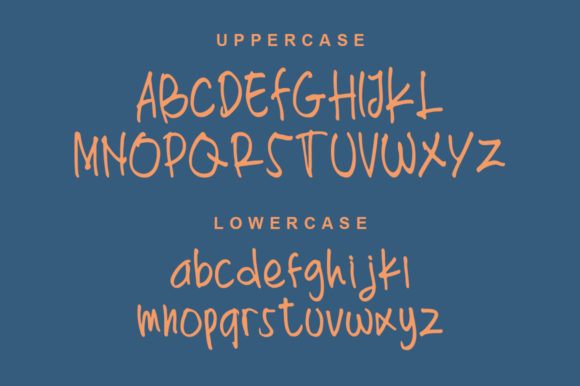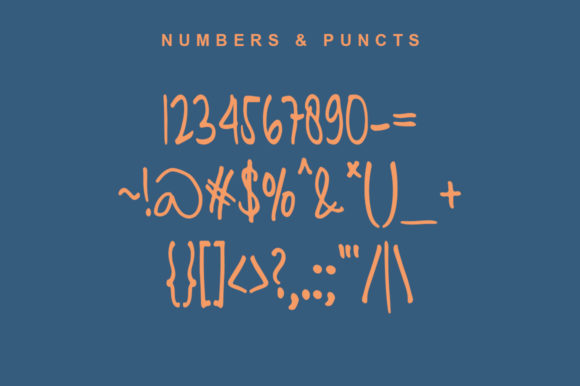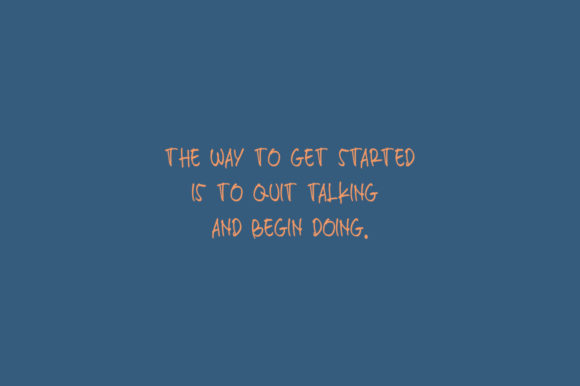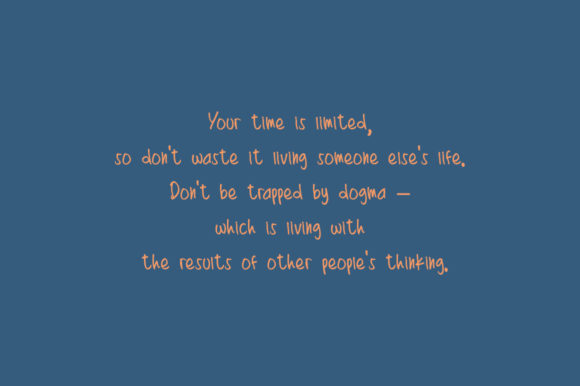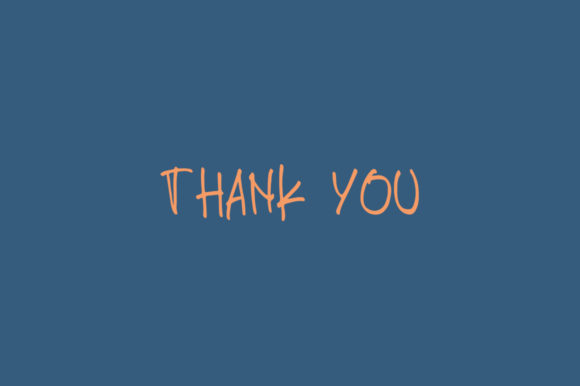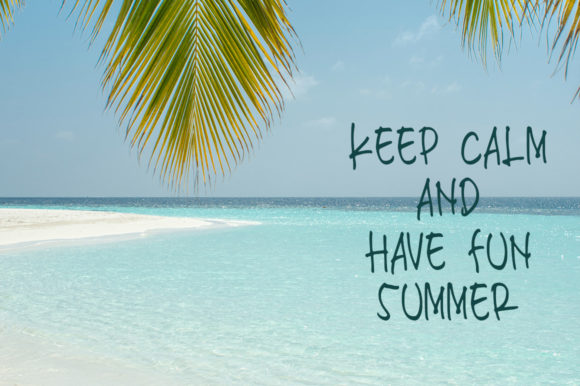
Thoertien Font
About Thoertien Font
Thoertien is a simple, cool and cute handwritten font. No matter the topic, this font will be an incredibly asset to your fonts’ library, as it has the potential to elevate any creation.